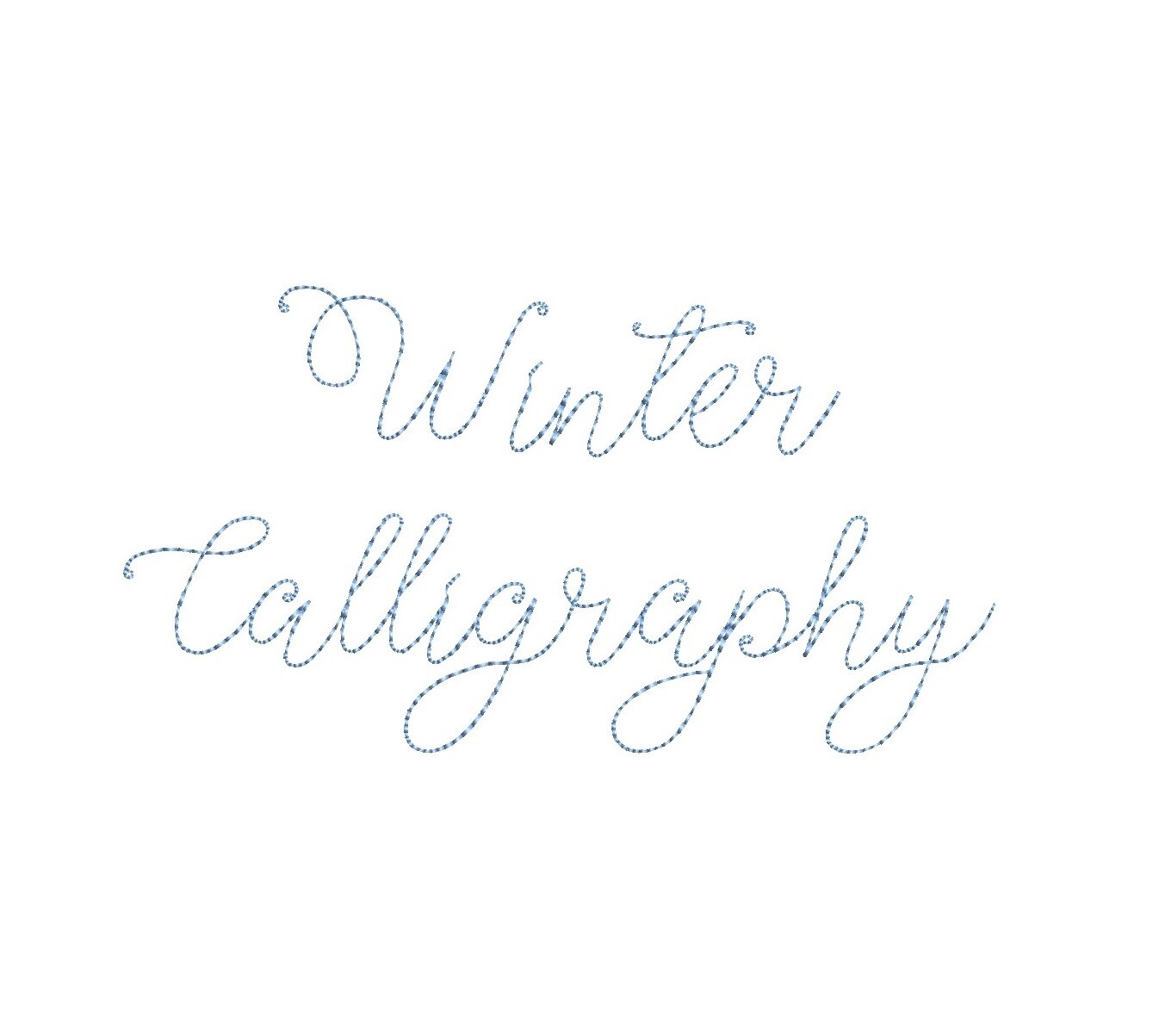
Embrace the enchanting Winter Calligraphy Bean Stitch ESA font, a perfect embroidery design for your seasonal projects. Seamlessly compatible with Wilcom Studio e4.5.6 and Hatch 3 versions and beyond, this font guarantees impeccable stitch precision and intricate detailing. Let your creations flourish with the captivating bean stitch pattern, adding elegance to any textile masterpiece, from holiday decorations to intricate designs. Unlock boundless creative possibilities with this font's versatility. Optimized for SEO, it ensures both visual brilliance and search engine prominence. Don't miss this exceptional embroidery asset to infuse your craft with the magic of winter. Explore Winter Calligraphy ESA font today!